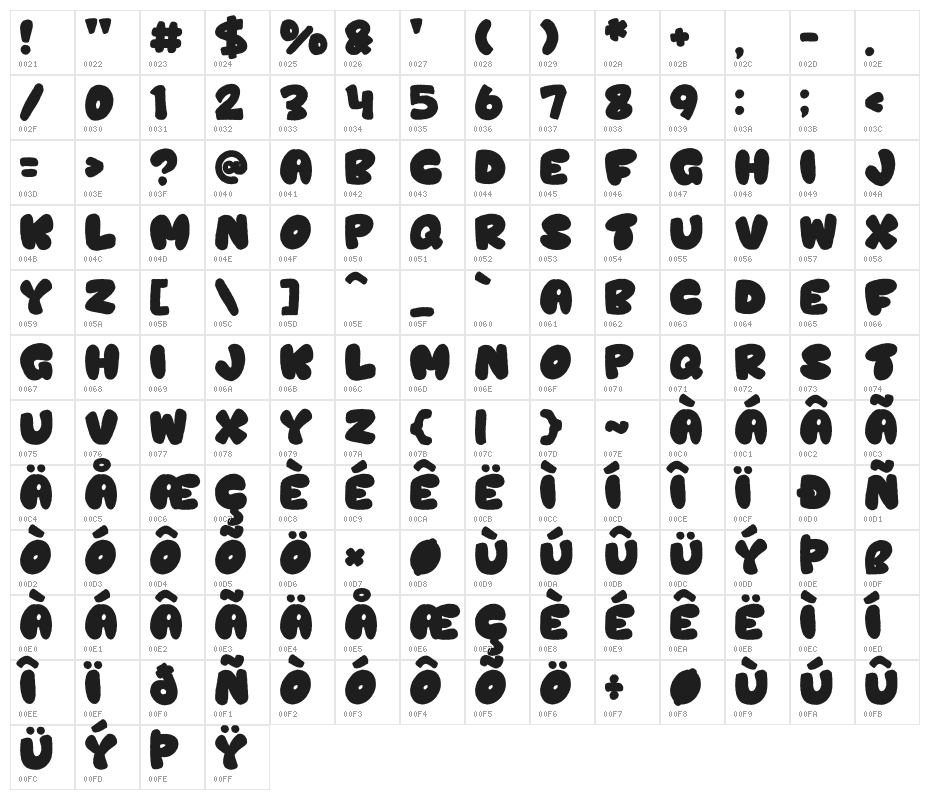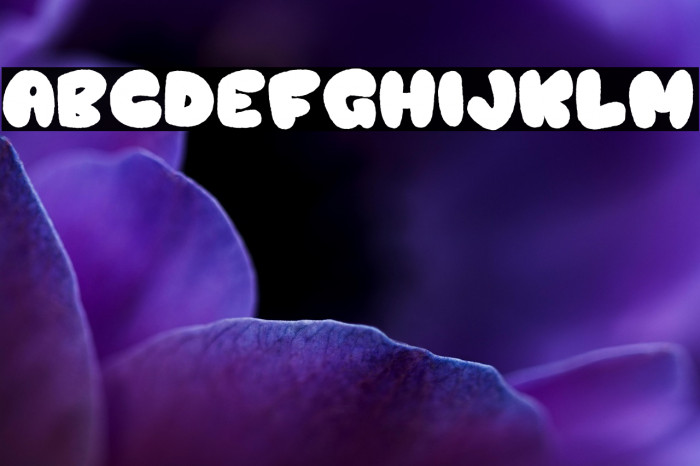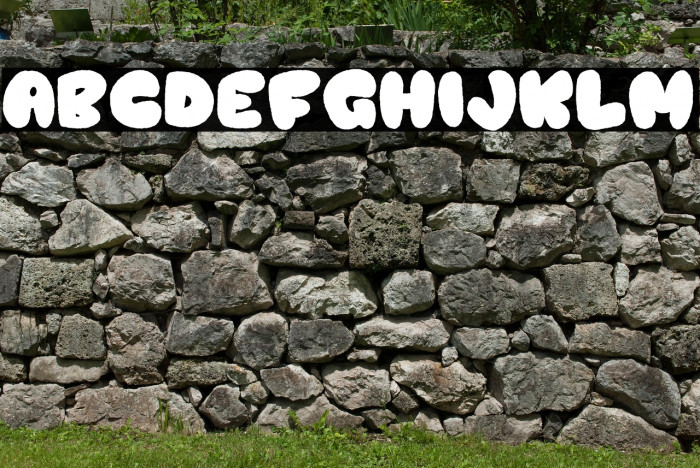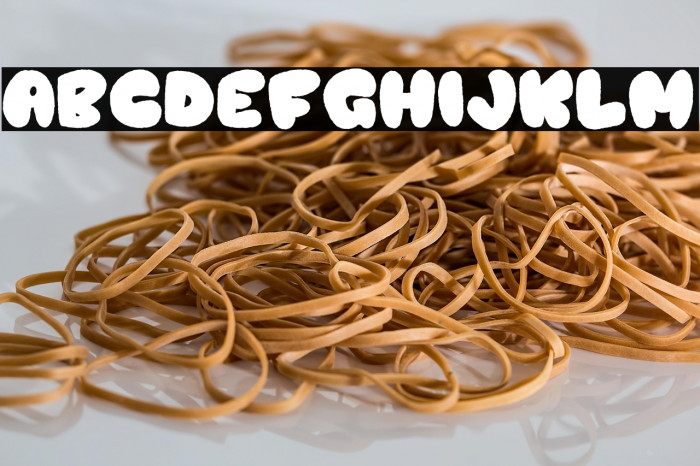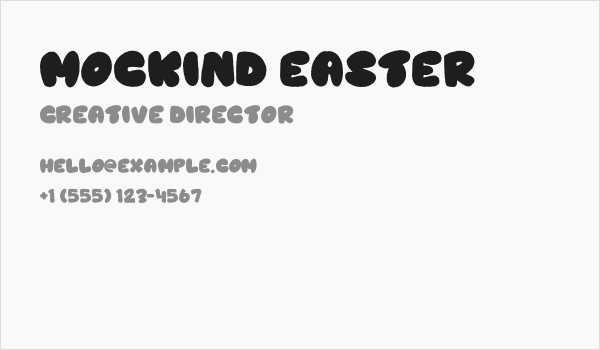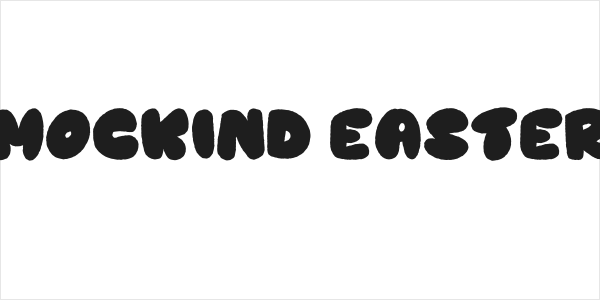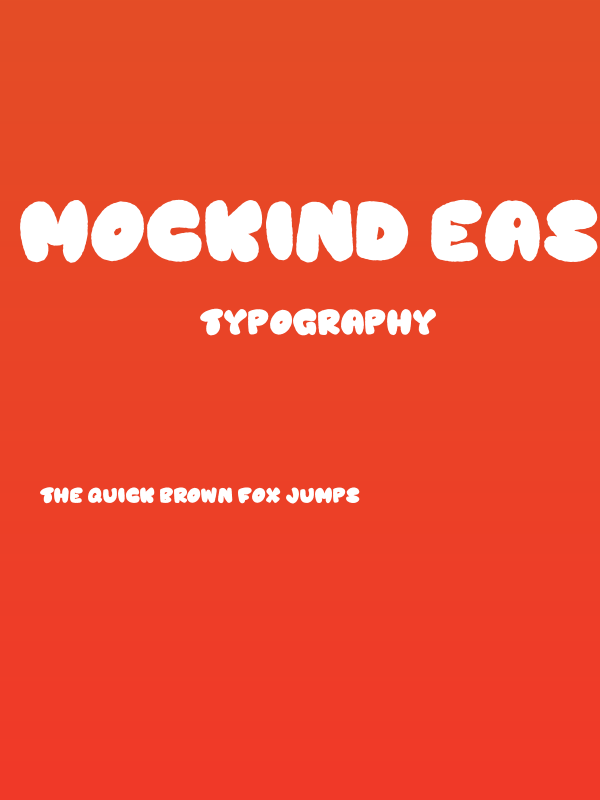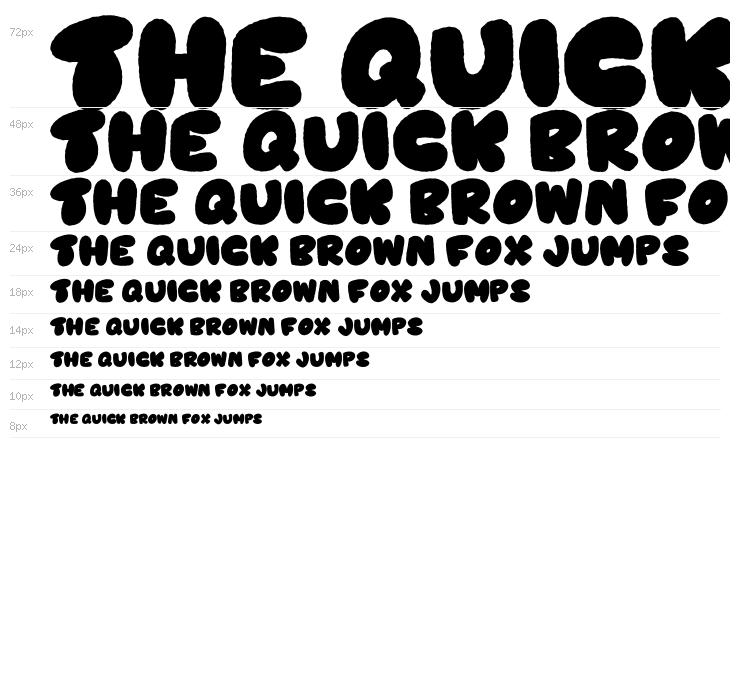
Mockind Easter Font
Mockind Easter Description
This playful and bold font features rounded, bubble-like characters that convey a sense of fun and whimsy. The letters are thick and uniform, with a consistent stroke width that gives them a solid and substantial appearance. The overall style is informal and friendly, making it suitable for creative and lighthearted projects. The characters are closely spaced, enhancing the compact and cohesive look of the text. The font includes a full set of uppercase and lowercase letters, numbers, and a variety of special characters, ensuring versatility in usage.